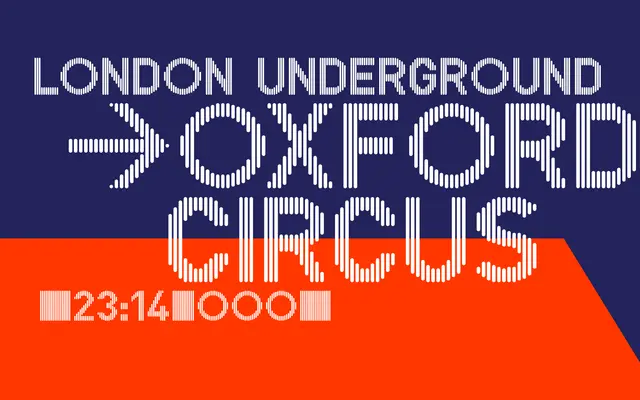
BD Victoria
A grotesque sans drawn from the uppercase lettering used on London Underground station information panels, first released in 2004.
Originating in 2004 as a revival of the London Underground's station panel lettering, BD Victoria captures the blunt, institutional character of transport signage grotesques. It ships in a single Regular weight with Latin Extended coverage across 23 languages, updated in 2023 with improved kerning and broader language support. Best suited to display and wayfinding contexts where that underground-adjacent tone is the point.
A single-weight grotesque sans drawing directly from the London Underground's station information panel lettering, with the blocky uppercase forms and signage conventions typical of transport grotesques.